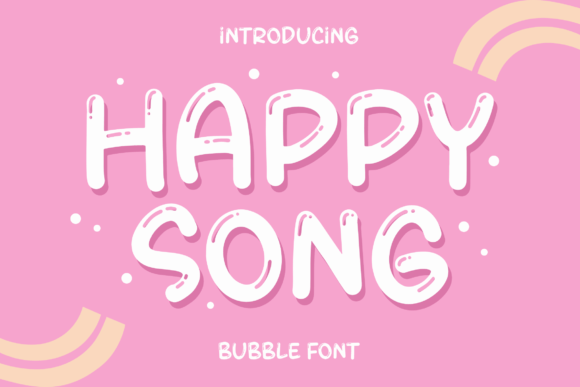
Introducing Happy Song Font—the most captivating display font that will transform your projects into works of art! Prepare to embark on a journey of delightful creativity as this font empowers you to express your unique style in an unforgettable way.
With its cheerful and energetic vibe, Happy Song Font is the perfect choice for those who seek a font that radiates positivity and exuberance. Whether you're working on logos, branding projects, homeware designs, product packaging, or any other creative endeavor, this font will infuse your work with a sense of joy and lightheartedness.
Happy Song Font is not just visually appealing; it's also incredibly versatile and accommodating. Its ability to adapt to a wide range of projects makes it the ideal companion for designers and artists of all levels. Whether you're crafting charming quotes for social media, creating eye-catching posters for special events, or designing elegant invitations for special occasions, this font will seamlessly elevate your work to new heights.
But what truly sets Happy Song Font apart is its remarkable ability to evoke emotions. Its playful and bubbly nature adds a touch of whimsy and charm to any project, making it perfect for capturing the attention of your audience. Whether you're aiming to spread joy, create a sense of wonder, or simply add a touch of delight to your designs, this font will effortlessly fulfill your creative vision.